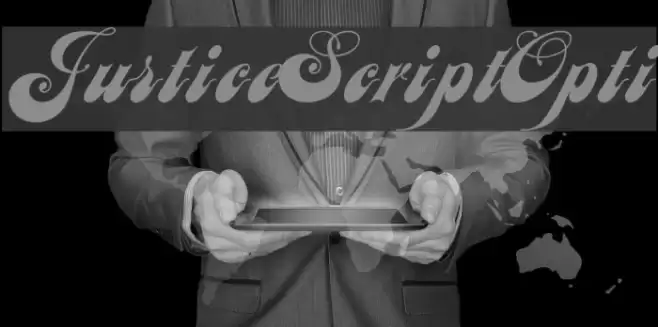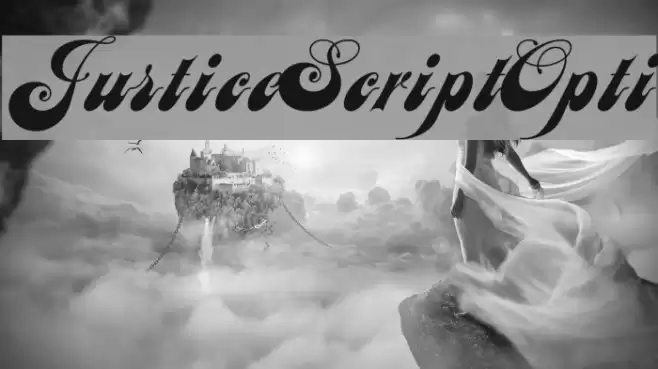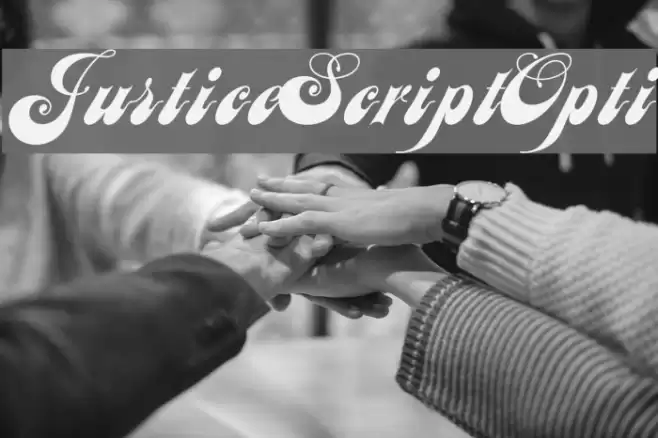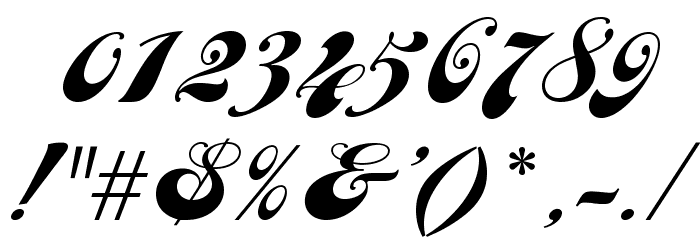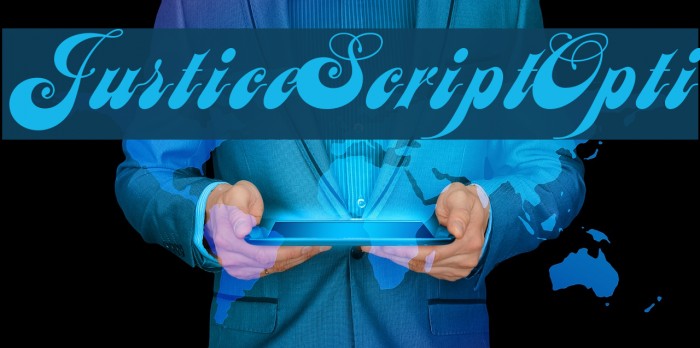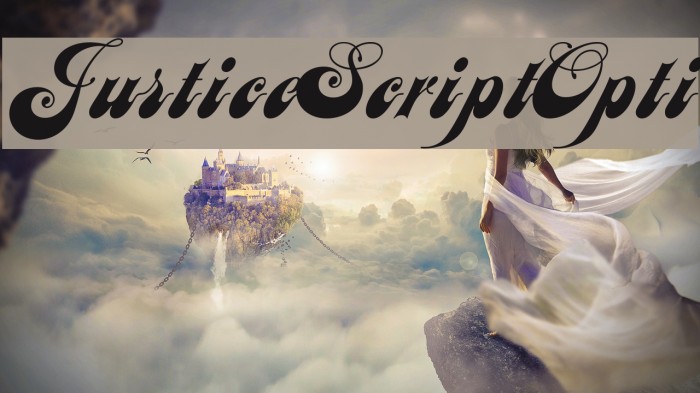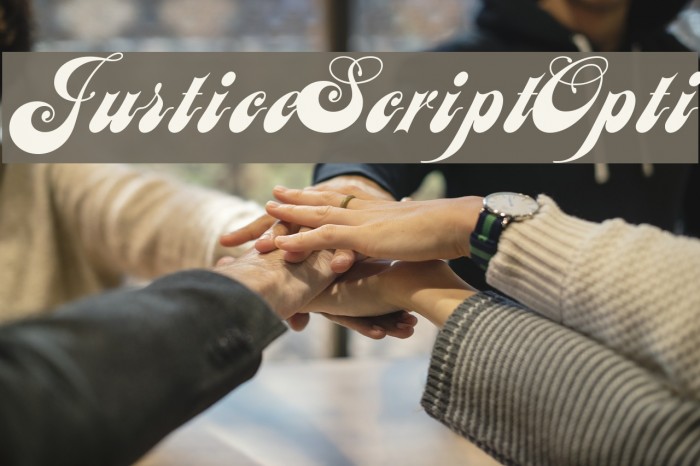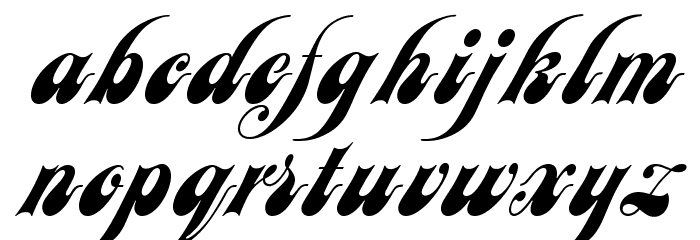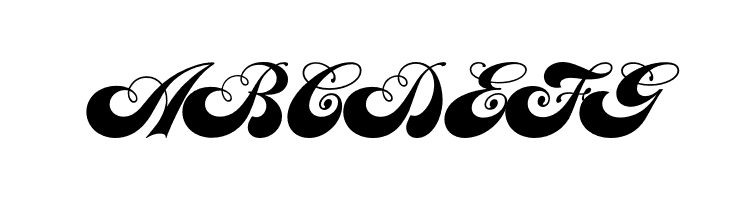
JusticeScriptOpti Font
JusticeScriptOpti Description
This font exhibits a bold and elegant script style with a high contrast between thick and thin strokes. The uppercase letters are characterized by intricate swashes and flourishes, giving them a decorative and sophisticated appearance. The lowercase letters maintain a fluid and cursive form, enhancing the overall elegance. The numerals are equally stylish, featuring a consistent design that complements the alphabet. Special characters are designed with the same attention to detail, ensuring a cohesive look across all glyphs. The font's ornate style makes it suitable for projects that require a touch of luxury and refinement.
A bold, elegant script font with decorative swashes and high contrast strokes from Uncategorized fonts.
- Proposed Projects: Ideal for wedding invitations, luxury branding, high-end product packaging, and elegant signage.
- Use Case: Logos, Headlines, Invitations